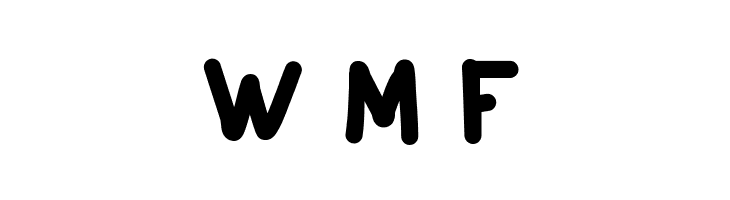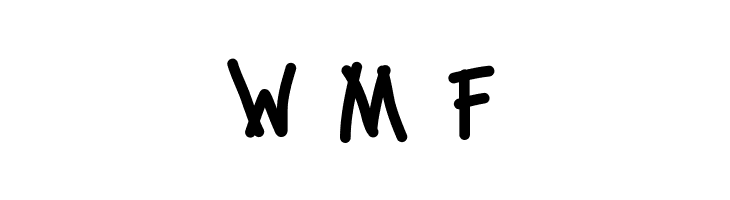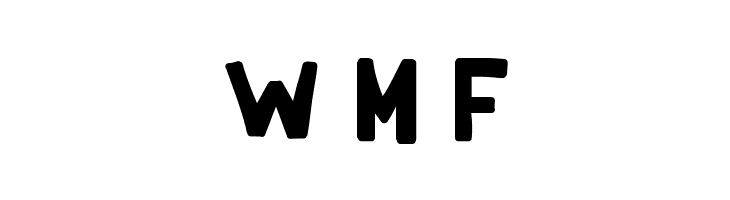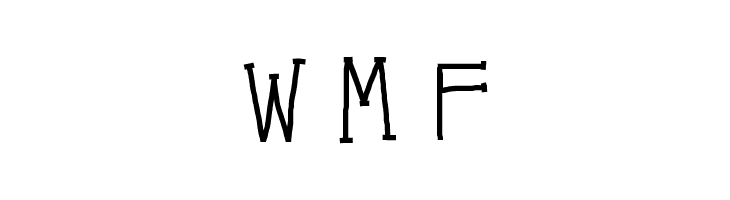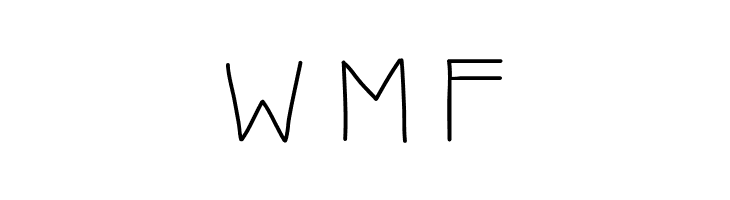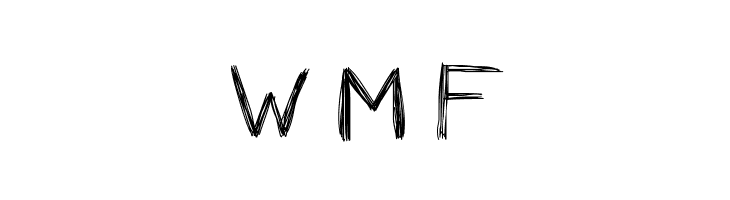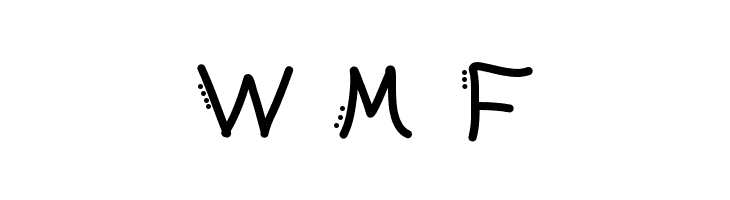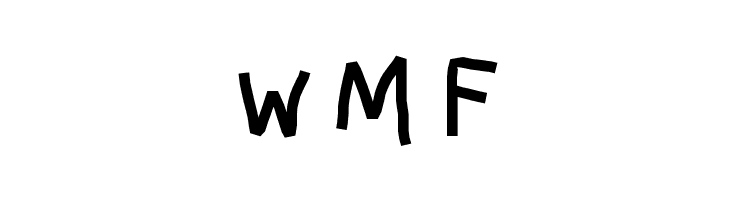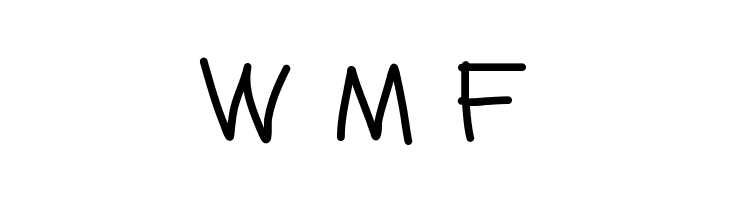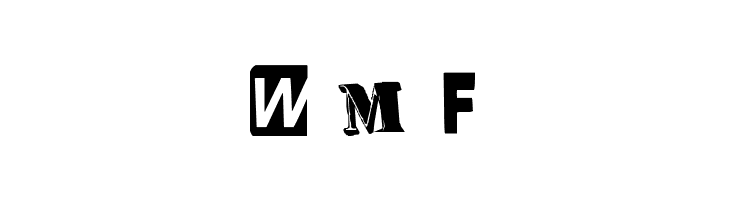
KBChatterBox Font
Font by Khrys Bosland
A playful, hand-drawn font with characters enclosed in irregular outlines.
KBCHEETAHRITA Font
Font by Khrys Bosland
A playful, cheetah-inspired font with dotted accents and a whimsical style.
KBChubby Font
Font by Khrys Bosland
A playful, bold font with rounded, thick strokes and a hand-drawn feel.
KBCloudyDay Font
Font by Khrys Bosland
A playful, rounded font with bold, bubbly letterforms and a friendly vibe.
KBCRazYTowN Font
Font by Khrys Bosland
A playful, bold handwritten font with a whimsical and informal style.
KBCuriousSoul Font
Font by Khrys Bosland
A playful, hand-drawn font with dotted outlines and a whimsical style.
KBDabble Font
Font by Khrys Bosland
A playful, handwritten font with a dotted pattern and casual style.
KBDarkHour Font
Font by Khrys Bosland
KBDARLINGMG Font
Operatype.Co
KBDelicateSoul Font
Font by Khrys Bosland
A playful, hand-drawn font with a dotted outline and whimsical style.
KBDinoMite Font
KhrysKreations - www.teacherspayteachers.com/store/khrys-bosland
A playful, dinosaur-themed font with whimsical, irregular shapes.
KBDottyDot Font
Font by Khrys Bosland
A playful font with characters connected by dots, ideal for creative projects.
KBDraftsmen Font
Seemly Fonts
A playful, hand-drawn font with tall, narrow characters and artistic flair.
KBDunkTank Font
Font by Khrys Bosland
A bold, playful font with a three-dimensional shadow effect.
KBEarthQuake Font
Font by Khrys Bosland
KBEasyReader Font
Måns Grebäck
A playful, rounded handwritten font with bold, easy-to-read characters.
KBExpansive Font
Font by Khrys Bosland
A playful, handwritten font with dynamic strokes and a whimsical style.
KBFancyFootwork Font
Operatype.Co
An elegant script font with fluid, cursive strokes and sophisticated charm.
KBFancyMe Font